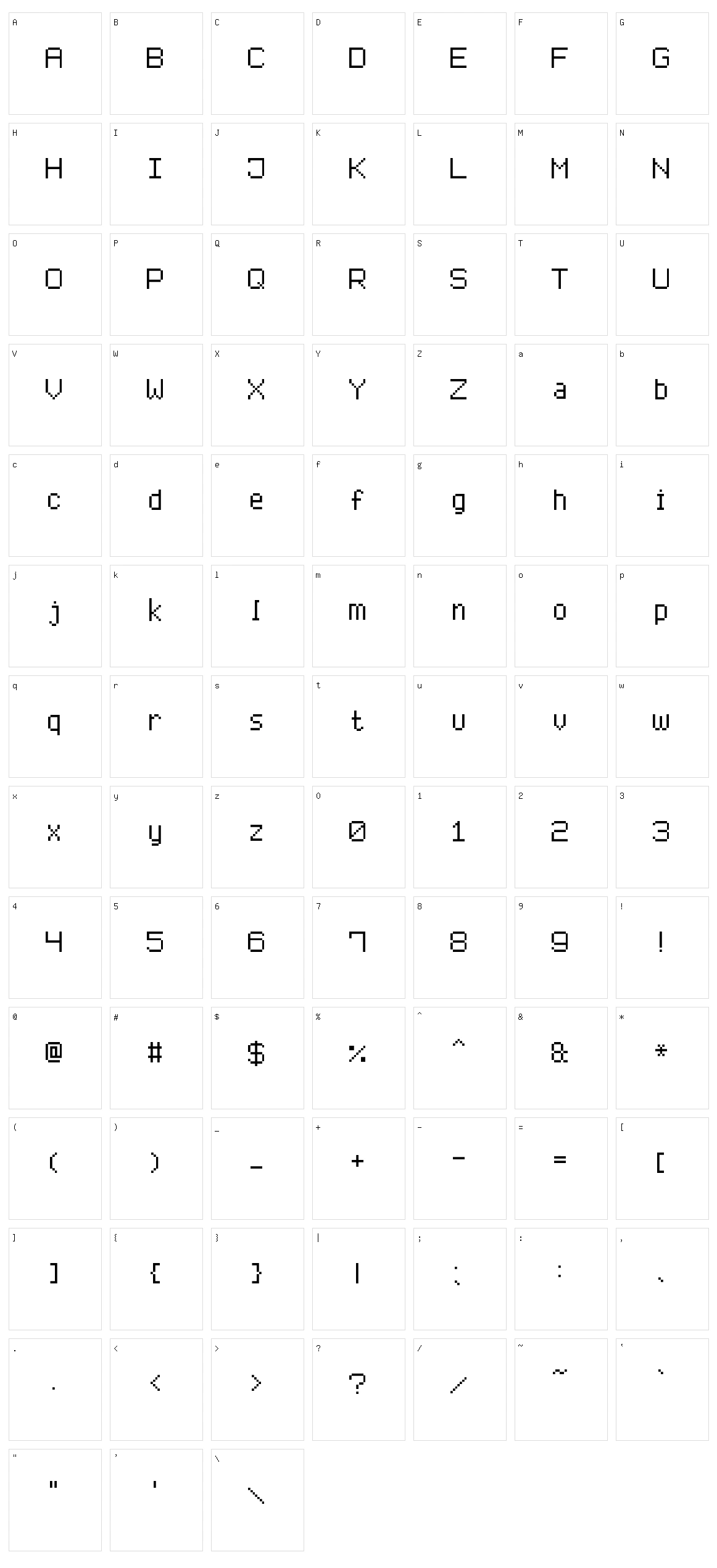
DESCRIPTION
Original thin and small pixel font. Size of base symbol is 7*9 pixels. Latin and Cyrillic code pages are supported.
AUTHOR
Sizenko Alexander
Style-7